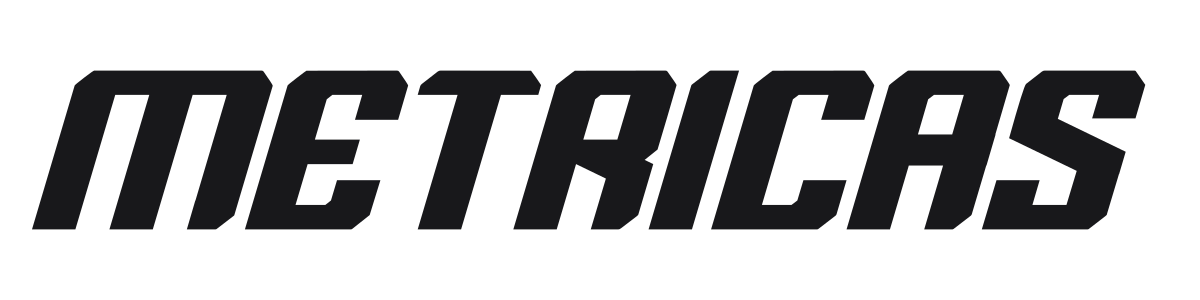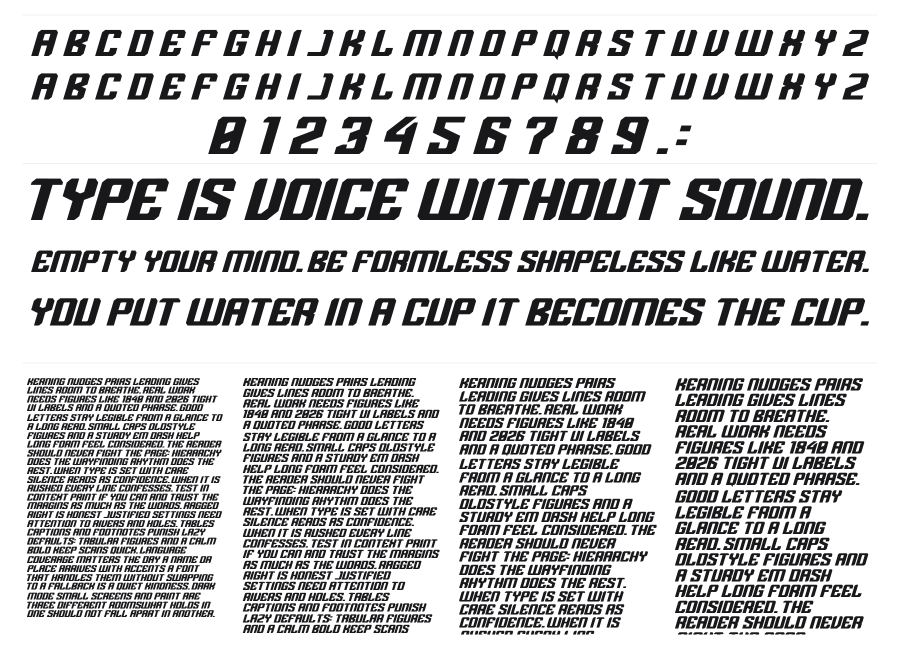
Metricas
Metricas is a heavy italic display font with sharp angled cuts and a powerful forward lean. The thick strokes and blade-like terminal slices give it a retro sports-tech energy that sits somewhere between a 1970s racing logo and a sci-fi film title. It hits hard at large sizes and works well anywhere the brief calls for speed or attitude.